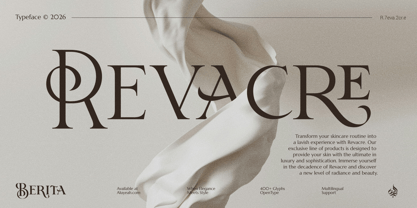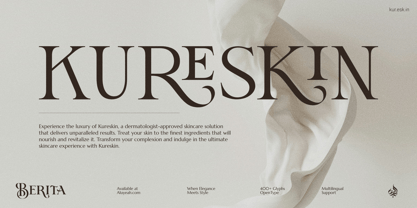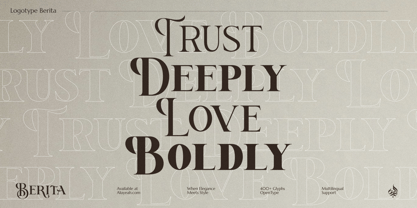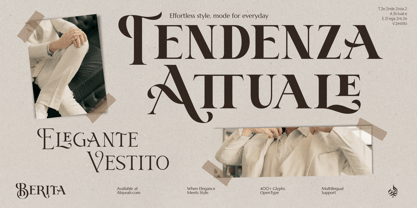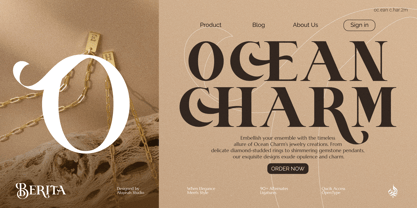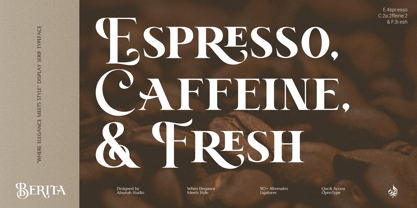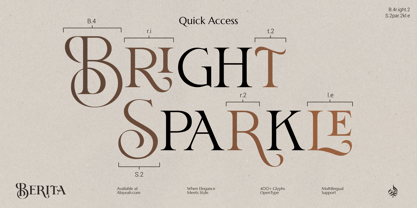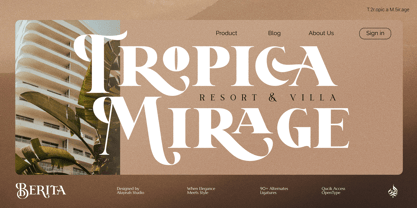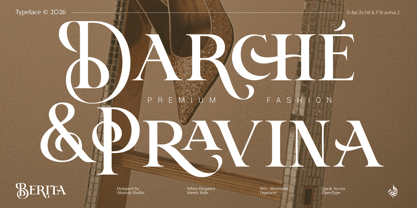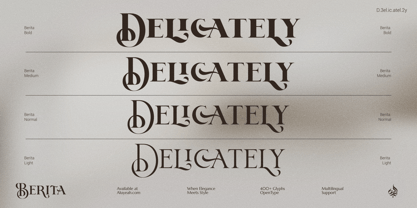
Al Berita
by Aluyeah Studio
The Al Berita Font Family was designed by Linggar Sundoro and published by Aluyeah Studio. Al Berita contains 4 styles and family package options.
Hello Aluyeaholics! Introducing Berita - Where Elegance Meets Style! We crafting fonts that are visually appealing and user-friendly. Our goal is to ensure anyone can easily use our fonts, regardless of their design background. By providing quick access features, We create fonts that are easy to work with. Making design accessible and enjoyable for everyone drives our passion, and we hope my fonts bring creativity to your projects! Experience sophistication like never before with our Berita, "where elegance meets style" display font that adds a touch of glamour to any design. With its elegant curves and sophisticated details. Featuring multilingual, and quick access to over 90 alternates and ligatures. Whether it's a branding project or a wedding invitation, Berita suits every design endeavor effortlessly. Quick Access - You can easily call alternates using quick access combination like R.2 R.3 R.4 r.a r.e r.u etc. To get the preview-like result, you can use the quick access combination B.4er.2ita
Designers: Linggar Sundoro
Publisher: Aluyeah Studio
Foundry: Aluyeah Studio